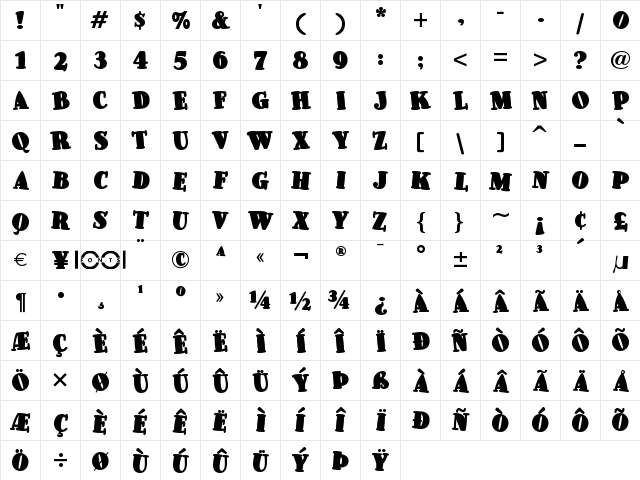
Pleasingly Plump NF Regular
Design Context for Pleasingly Plump NF Typeface
Pleasingly Plump NF is a composed and adaptable typeface that performs quietly and consistently across a wide range of design contexts.